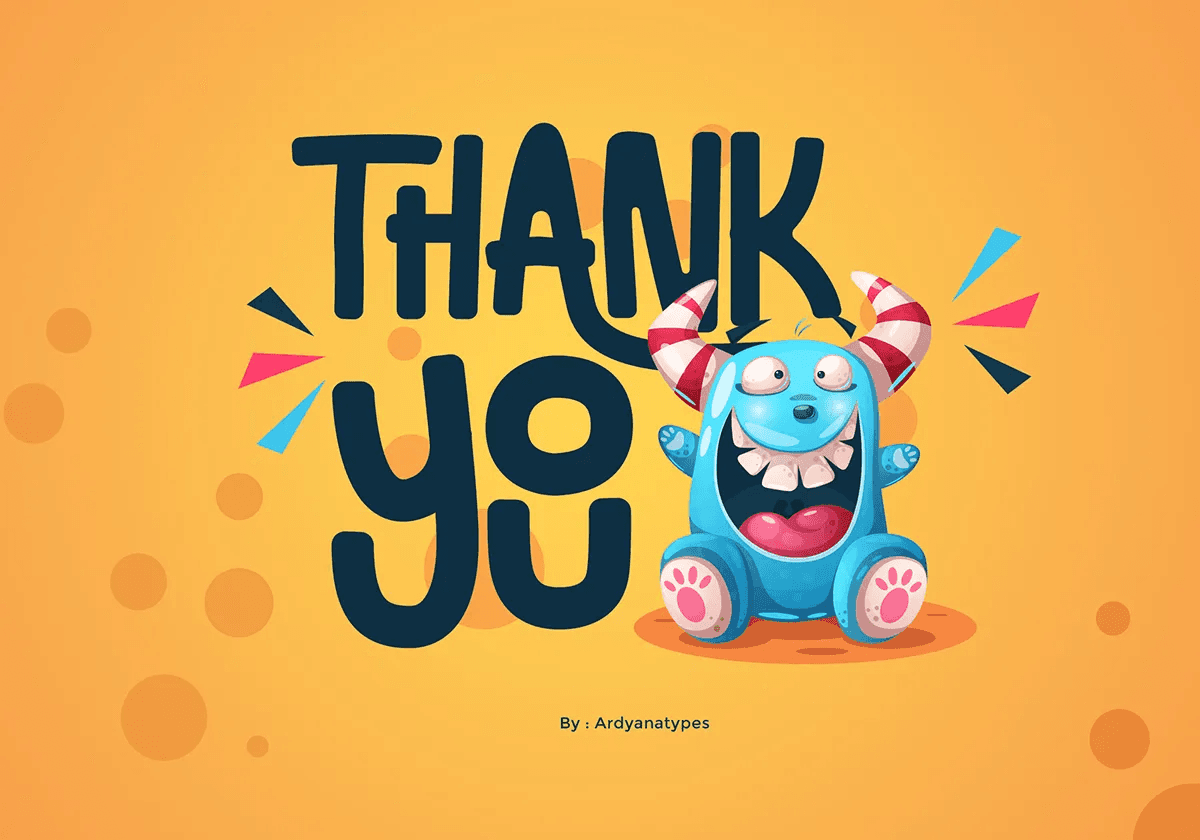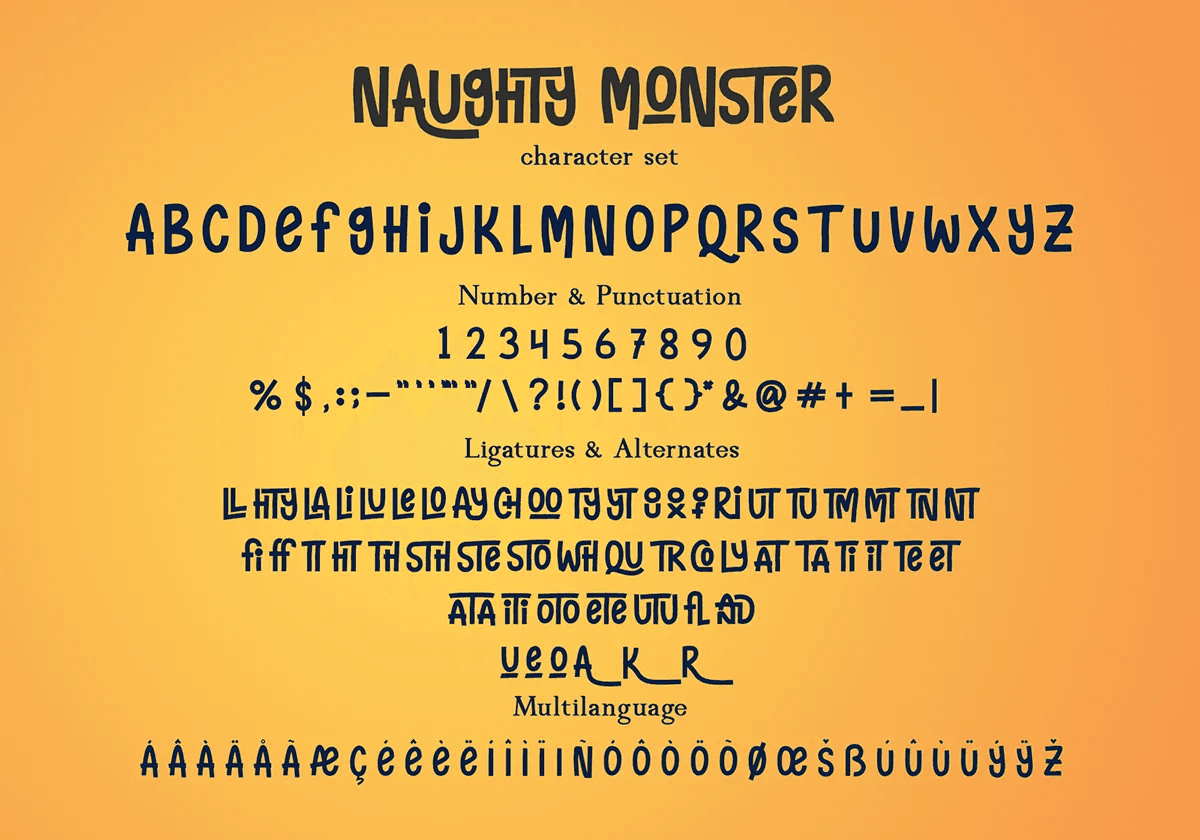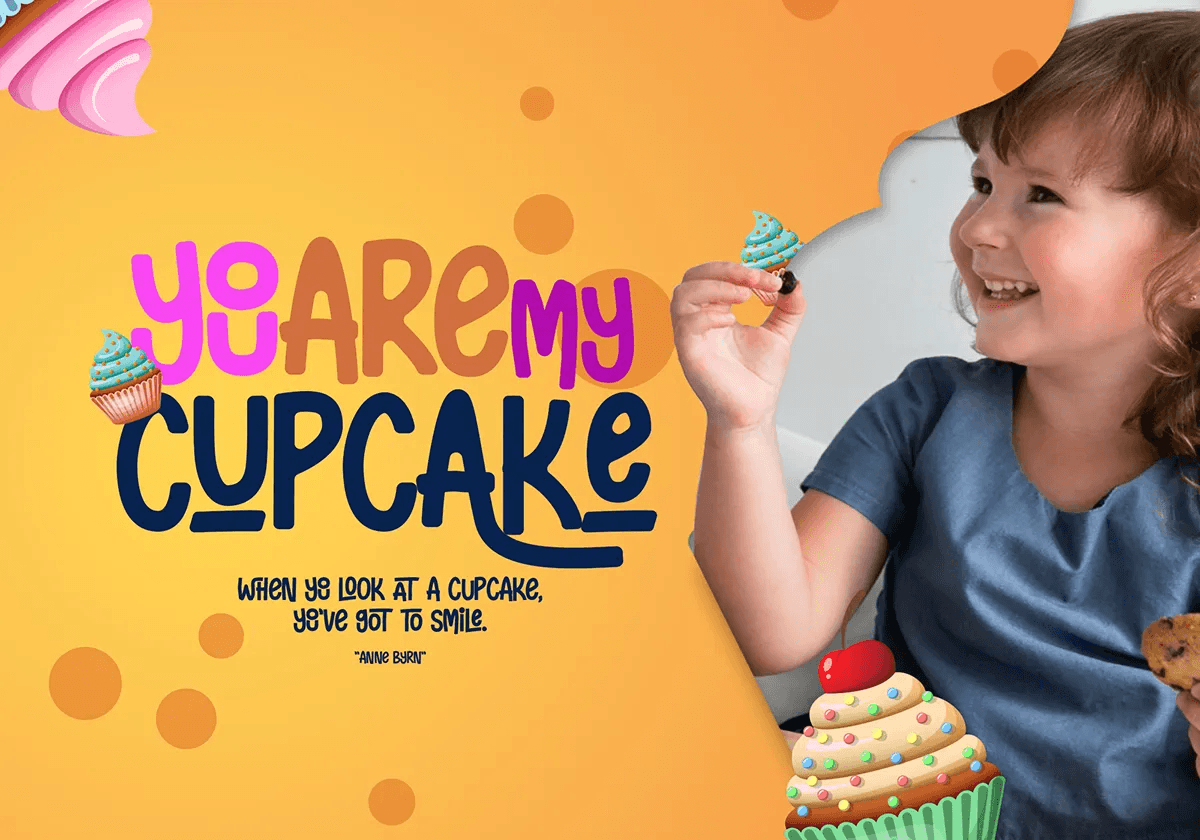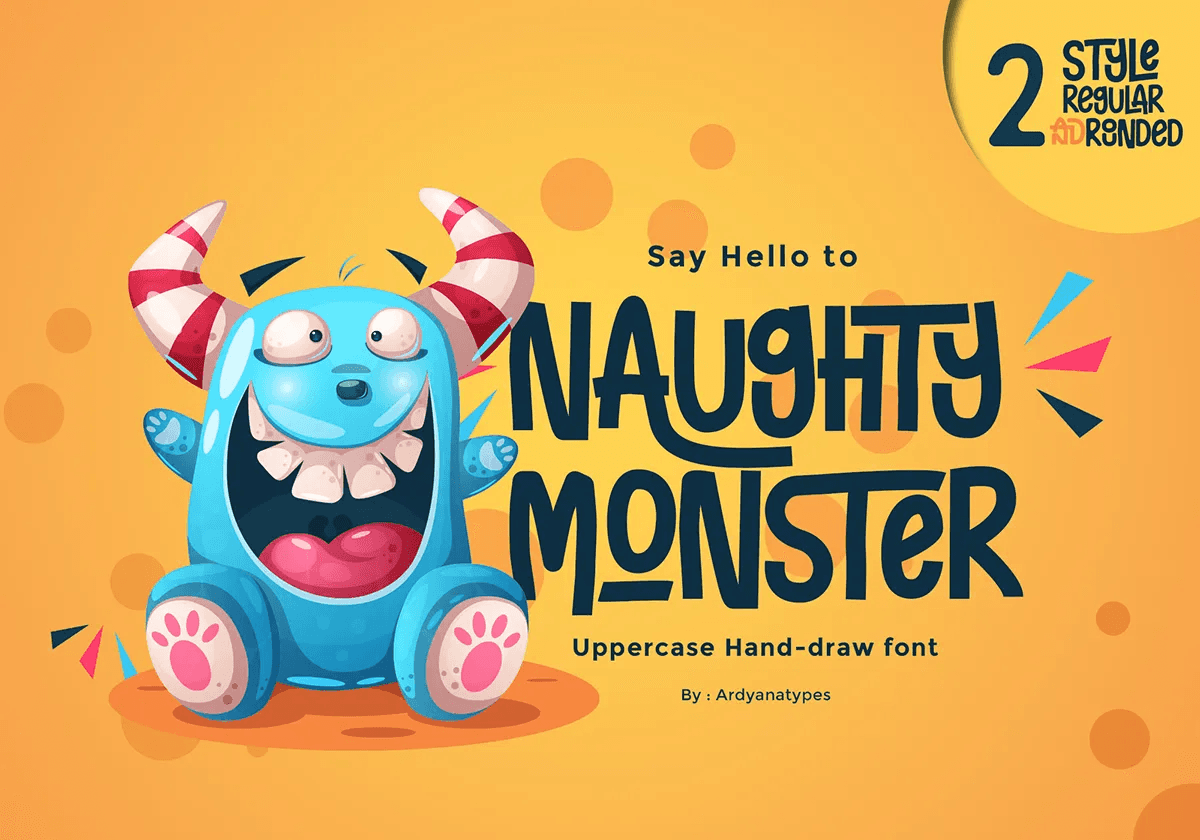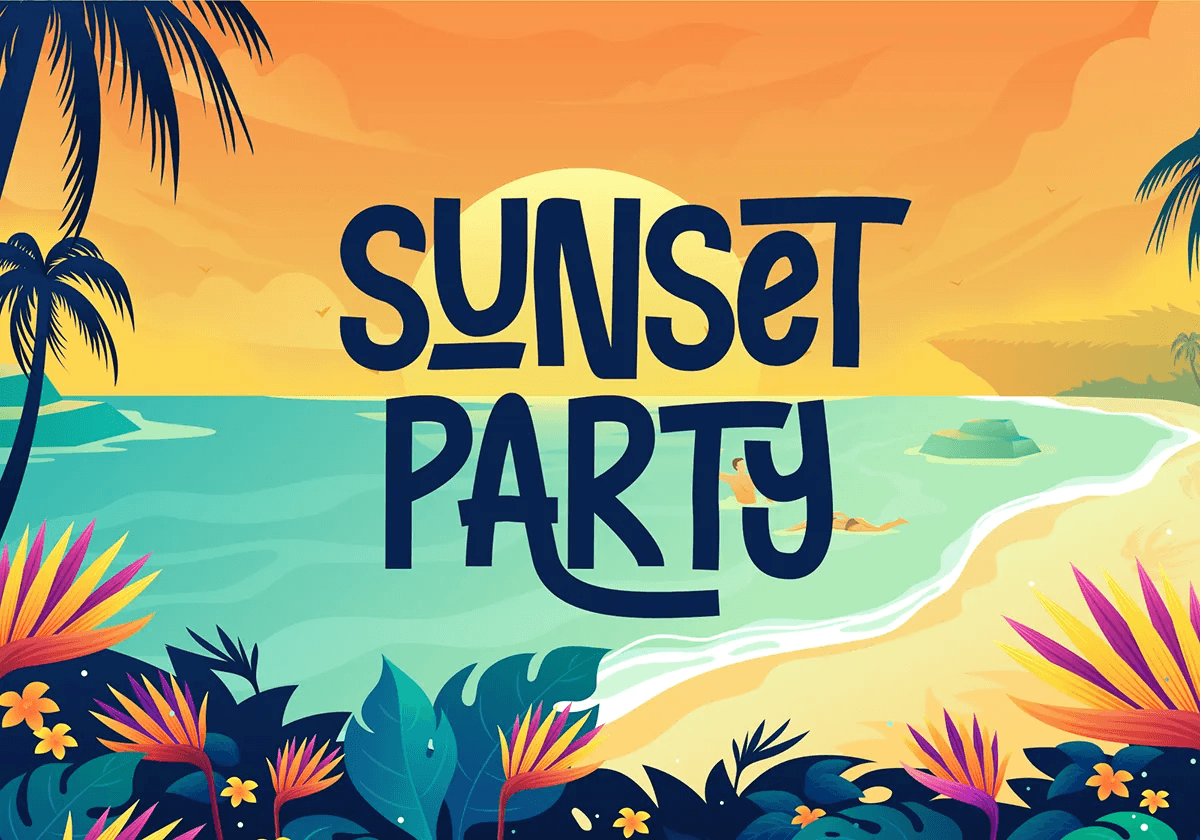
Free Naughty Monster Display Font is a wonderful font that will suit to your works. It is coming with a comic san style that will make all your works look playful and sweet. This font is also ready for a multilingual feature, presents with the OTF and TTF format file for this free font that you can install on your devices. It is is very good for your projects such as packaging, banners, gift cards, flyers, proposals, and more. So, it is possible for a personal use license, but, if you want to get more benefits, make sure you buy the premium version.